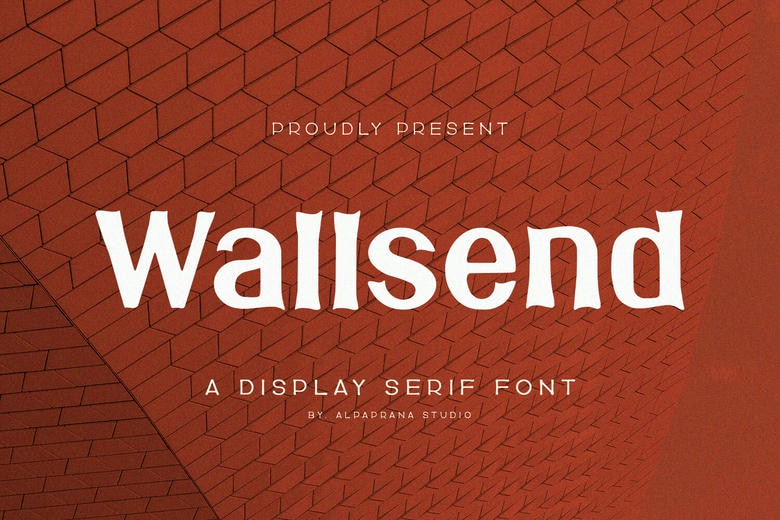
Wallsend Font
Wallsend is display serif font that comes with the feel of elegance and modernity. It will be most effectively suitable for magazine, packaging, posting, shopping bags, t-shirts, books cover, photography, special occasion and much more of the design.
Wallsend Serif Font